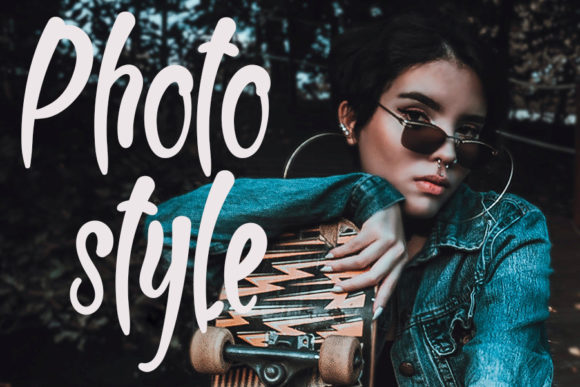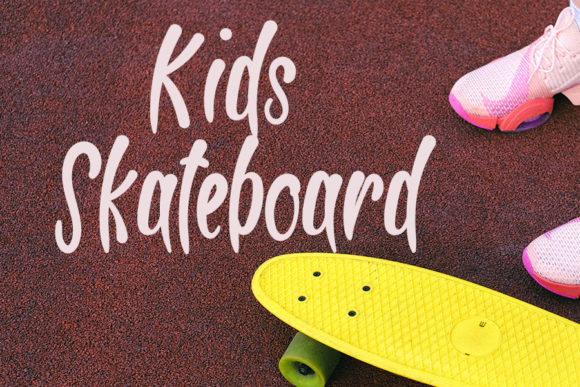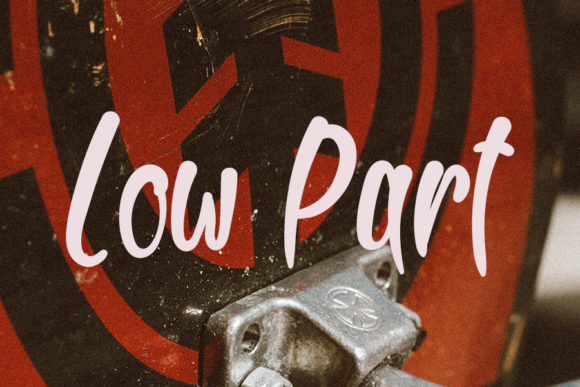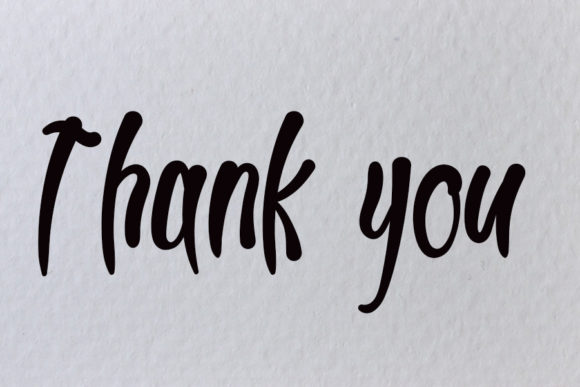
About Skateboard Font
Skateboard is a modern and cool-looking handwritten font, perfect for bold ideas and limitless imagination! Beautifully flowing and with an impressive style, this typeface will bring your creative projects to life!